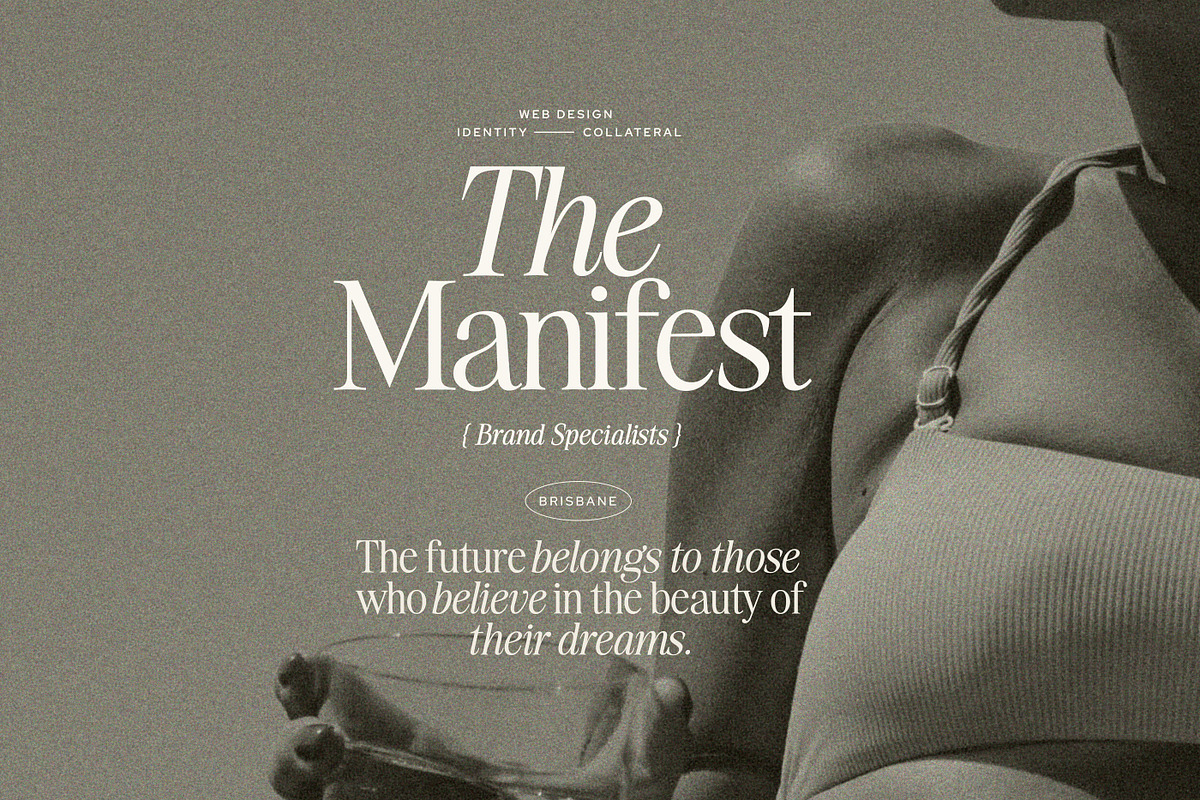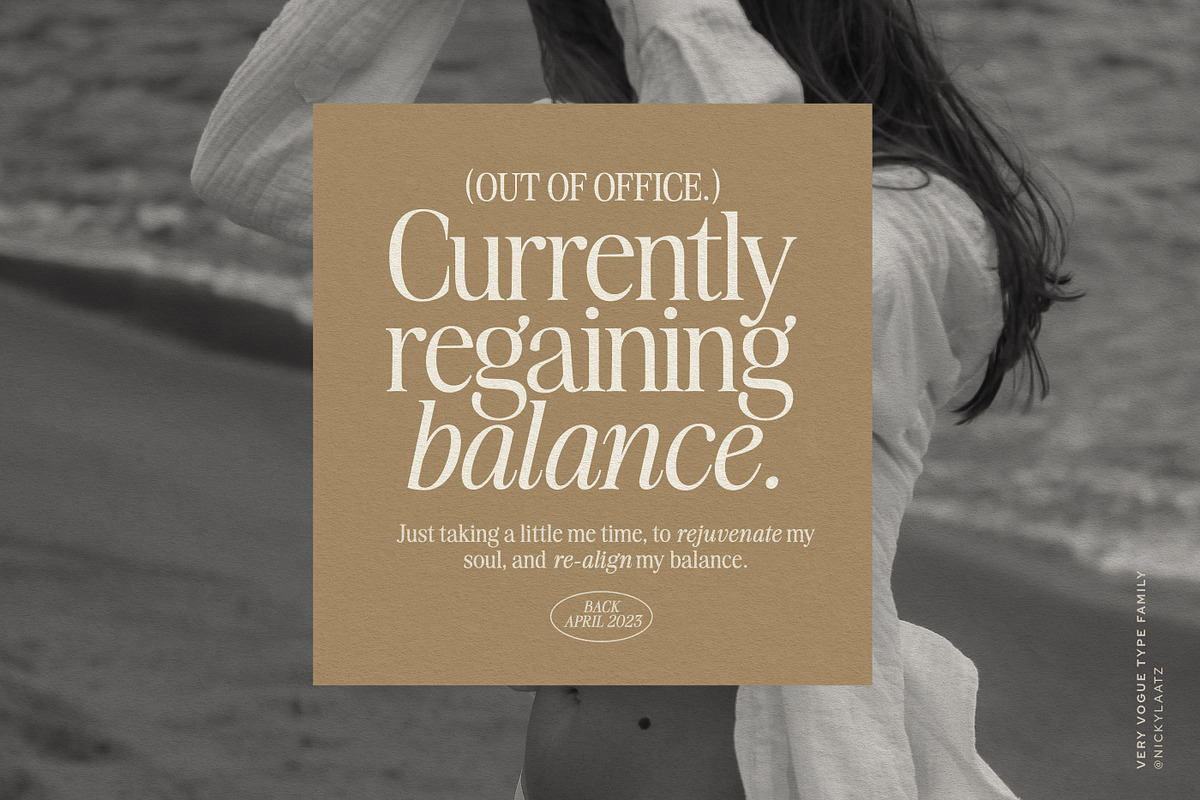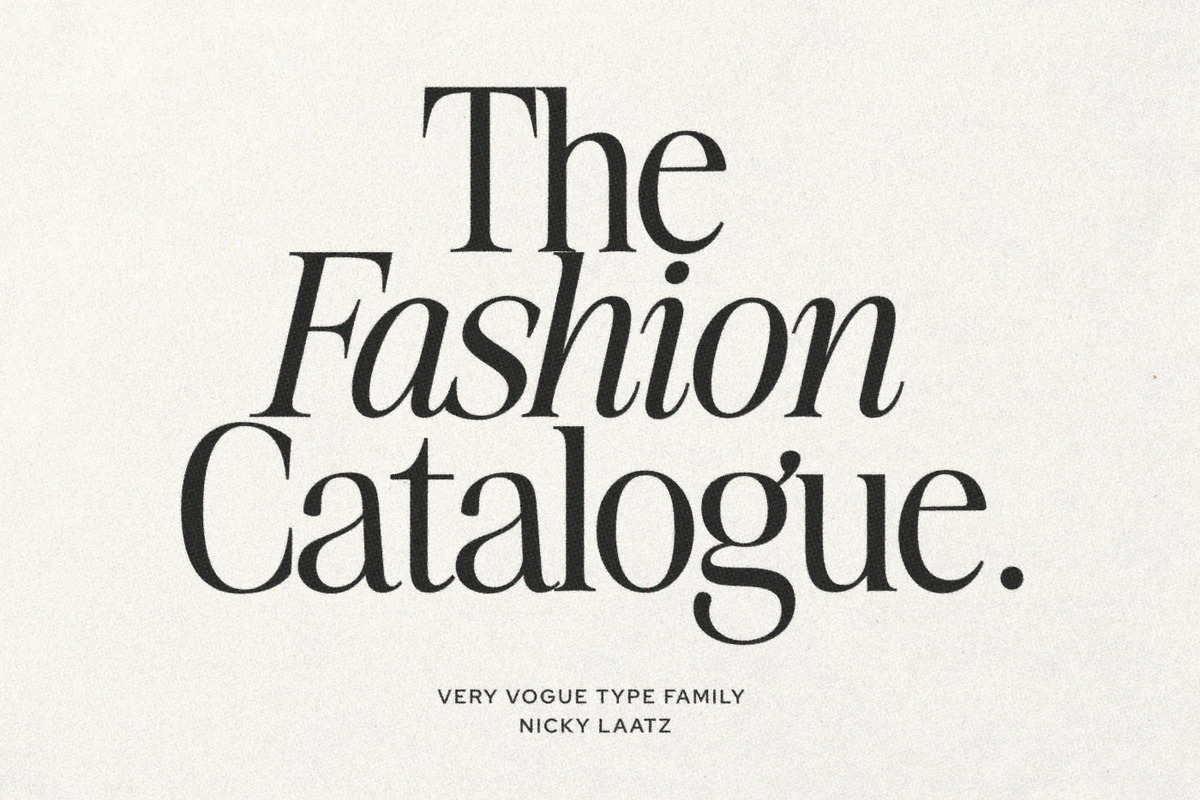
Based on glamourous fashion magazines from the 80’s and beyond and dripping with class and pizazz – say hello to The new ‘Very Vogue’ Serif family! Classic and refined, and the epitome of style, it has soft curves and attention to detail make Very Vogue Display Serif a must for any projects requiring that upper level of class. Don’t forget to play with your letterspacing for even more stylish impact – for larger display type, tighten the letterspacing, and the opposite for smaller type.